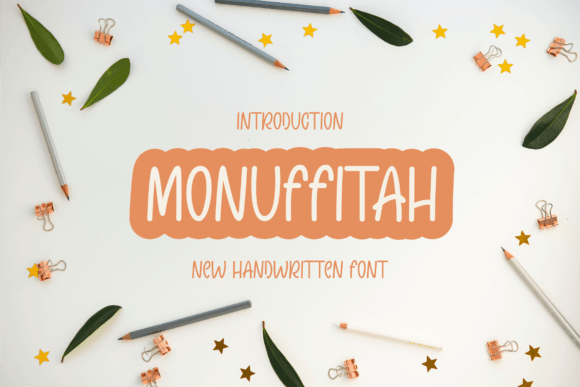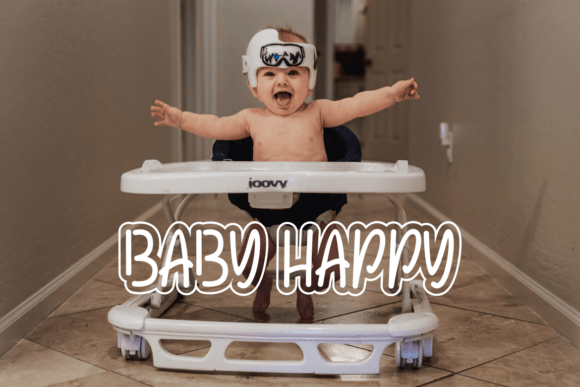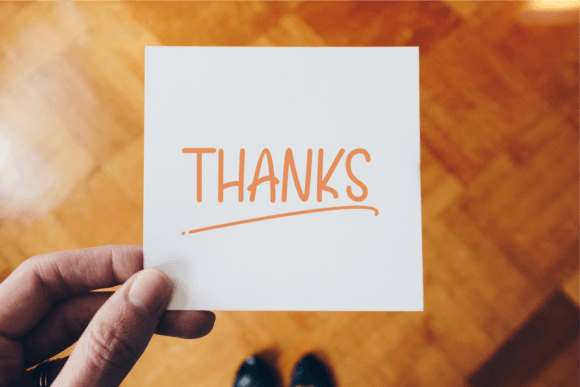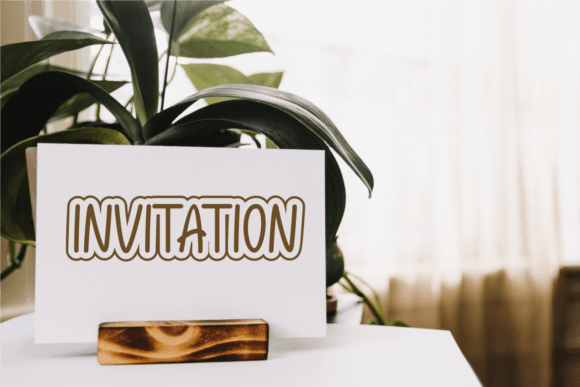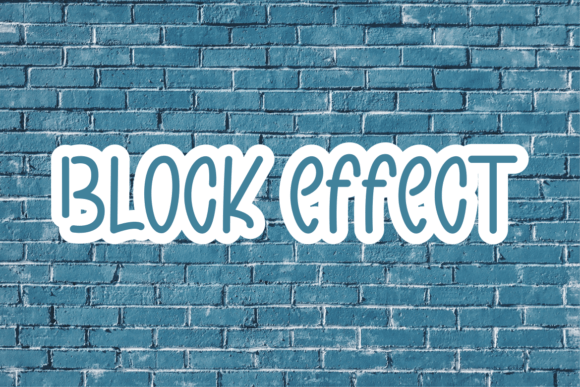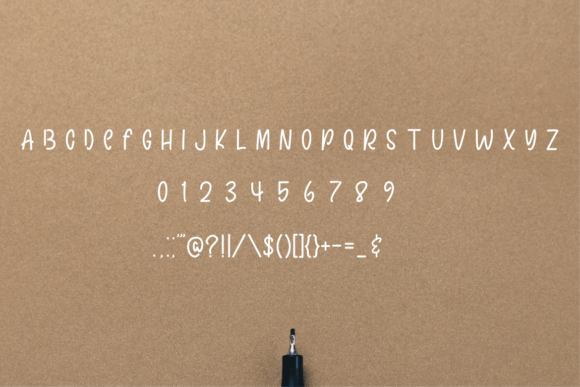
Monuffitah Font
About Monuffitah Font
Monuffitah font is a lively and approachable handwritten typeface that brings warmth and personality to your creative work. Its playful curves and friendly design make it a versatile choice for a wide range of projects. Whether you’re crafting greeting cards, designing social media posts, or creating presentations, Monuffitah is designed to become your favorite go-to font.
A Fun and Friendly Handwritten Style
Monuffitah font captures the charm of authentic handwriting with a casual, inviting style. The letters have a relaxed flow that mimics natural penmanship, adding a personal touch that helps your designs connect with the audience. This font balances playfulness with clarity, making it easy to read while retaining character and uniqueness.
Versatile Use Cases
Monuffitah’s adaptability makes it perfect for various creative applications:
• Craft Projects: Ideal for scrapbooking, DIY cards, and handmade gifts that require a friendly, personal feel.
• Digital Design: Use Monuffitah to add a warm, casual tone to websites, blogs, and social media graphics.
• Presentations: Make your slides more engaging and approachable with this lively font that keeps the audience interested.
• Greeting Cards: Perfect for birthday wishes, thank-you notes, and holiday cards that need a heartfelt and informal style.
• Branding: Suitable for brands aiming for a relatable and friendly image, especially small businesses and creative studios.
Why Choose Monuffitah Font?
Monuffitah font combines personality with practicality. Its friendly, handwritten style enhances the emotional impact of your text, making it ideal for projects that aim to communicate warmth and creativity. Despite its playful nature, it maintains excellent legibility, which is essential for digital and print applications.
Design Tips for Monuffitah Font
• Pair Monuffitah with simple sans-serif fonts to create a balanced design that is both fun and professional.
• Use this font for headlines, titles, or key phrases to draw attention and add character.
• Incorporate bright, cheerful colors alongside Monuffitah to enhance its playful vibe.
• Experiment with varying font sizes and weights to create dynamic compositions that keep your designs lively.